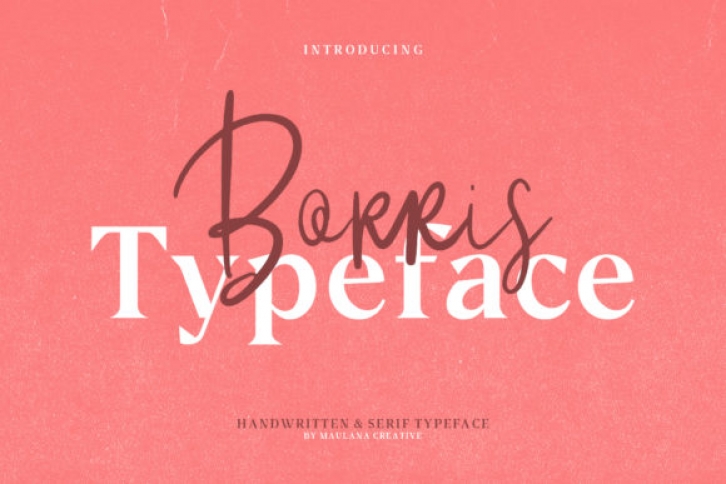
Borris is the ideal font to give your designs an authentic handcrafted feel. It’s perfectly suited for signatures, stationery, logos, typography quotes, magazine or book covers, website headers, clothing, branding, packaging design and more.